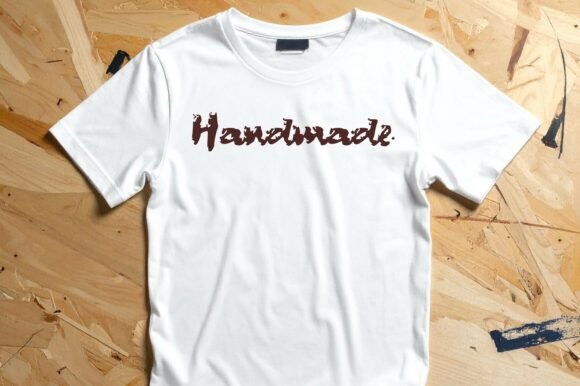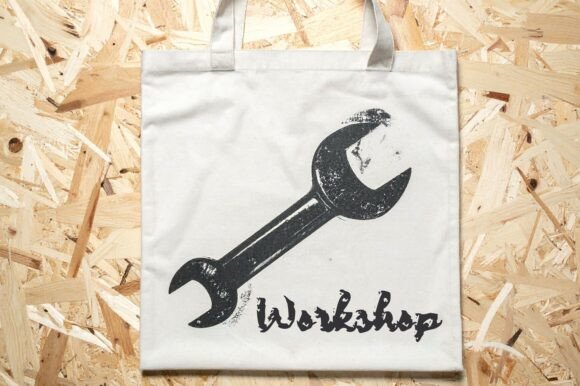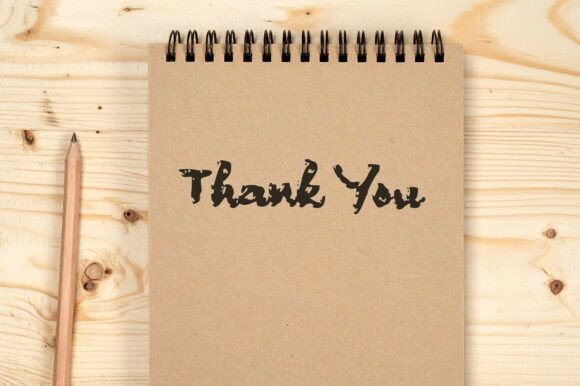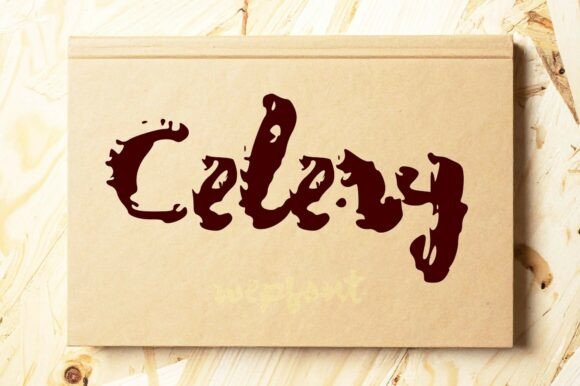
Experience the Enchanting Magic of Celery Font
In the world of typography, few fonts manage to capture the essence of hand-drawn illustrations as effortlessly as Celery. This uniquely delightful font is artistically tailored with a natural finesse that radiates a sense of classic authenticity, adding an elegant artisanal touch to your designs. Whether you’re a designer, crafter, or simply someone who appreciates the beauty of handwritten aesthetics, Celery is sure to enchant you with its captivating charm.
The Distinct Aesthetics of Celery
The allure of Celery lies in its distinct aesthetics, which revolve around erratic baselines and spontaneous letterforms. These characteristics imitate the whimsical strokes of a painter’s brush or the delightful unpredictability of a pencil line, giving your creations a sense of life and personality. Unlike rigid, assembly-line fonts, Celery’s charming inconsistencies enhance its allure, making it truly stand out in a sea of typography.
Effortless Imperfections and Varying Line Weights
One of the key features that set Celery apart is its effortless imperfections and varying line weights. These subtle nuances give the font a tangible finish that breathes life into your designs. The imperfections are not just random; they are carefully crafted to evoke a sense of human touch, making each letterform feel like it was drawn by hand. This attention to detail is what makes Celery so special and perfect for craft-based or boutique environments.
Ideal for Craft-Based and Boutique Environments
Celery is brimming with creativity, warmth, and authenticity, making it ideal for creating a cozy, craft-based, or boutique environment. Its superior ability to convey a unique warmth layered with an enticing crafty appeal sets it apart from other fonts. Whether you’re designing a logo, packaging, or marketing materials, Celery is sure to add a touch of elegance and sophistication to your creations.
Beyond Just Being a Font
Celery is more than just a font; it’s an experience. It’s a way to add a personal touch to your designs and connect with your audience on a deeper level. With Celery, you can create designs that feel handmade, unique, and special. This font is perfect for designers and crafters who want to add a touch of personality to their work and stand out from the crowd.
Tips for Using Celery Font
- Use Celery for headlines, titles, and marketing materials to add a touch of elegance and sophistication.
- Experiment with different colors and textures to enhance the font’s natural aesthetic.
- Pair Celery with other fonts to create a unique and visually appealing typography.
- Don’t be afraid to get creative and try new things – Celery is a font that rewards experimentation.
In conclusion, Celery is a truly unique and enchanting font that is sure to captivate designers and crafters alike. Its distinct aesthetics, effortless imperfections, and varying line weights make it the perfect choice for craft-based or boutique environments. With its superior ability to convey a unique warmth and crafty appeal, Celery is more than just a font – it’s an experience. So why settle for ordinary typography when you can experience the enchanting magic of Celery?